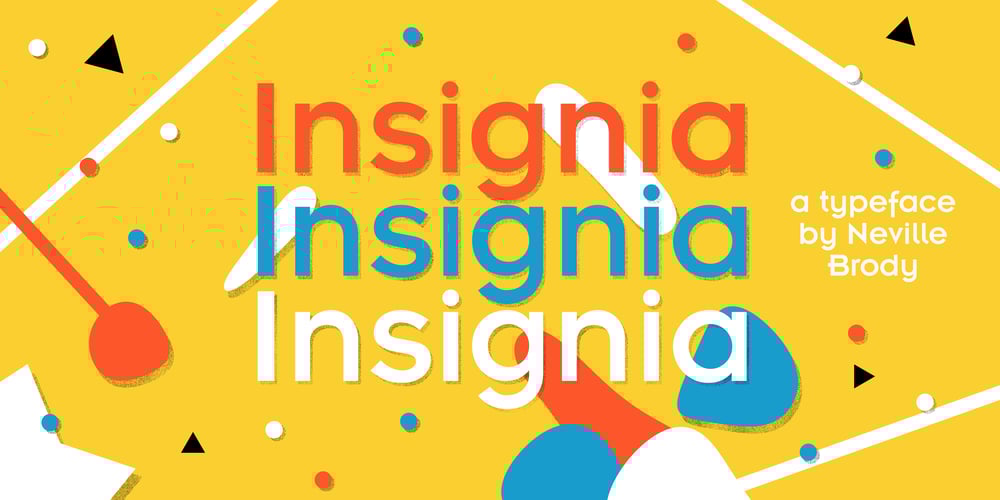
Insignia
Insignia font
Insignia Font Family was designed by Neville Brody and published by Linotype. Insignia contains 1 styles and family package options. Brody’s fonts borrow elements from both Art Deco and non-Western styles. His designs received international recognition for their innovative, computer-oriented style, reaching almost cult status. Four original Brody fonts are available from Linotype Library GmbH: Insignia, Industria-Solid, Industria Inline and Arcadia. For your convenience, we have gathered all four into one package. Insignia has the basic forms of constructed grotesque fonts and was influenced by the New Typography of the Bauhaus during the 1930s. Its image reflects the Zeitgeist of that age, suggesting technology and progress.